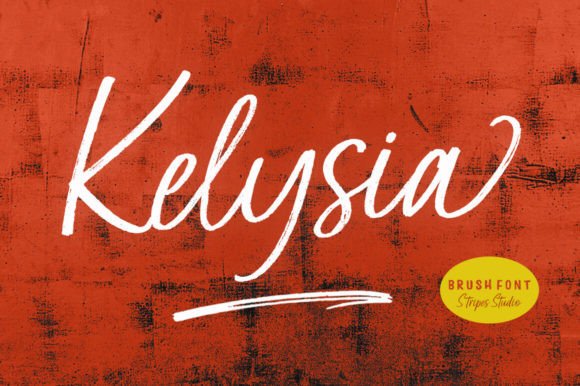
**Unleash the Charm of Timeless Elegance with Kelysia Script Font**
Transport yourself to a world of handwritten charm with Kelysia Script, a captivating font family that captures the essence of heartfelt communication. This exquisite script is a testament to the beauty of imperfection, handcrafted with detailed brush strokes that impart a raw yet irresistibly alluring texture. Its quirky personality dances across your designs, leaving a trail of visual delight.
**Immerse Yourself in a World of Versatility**
Kelysia Script's versatility is as limitless as your creativity. Whether you're designing a title that demands attention, crafting a signature that exudes authenticity, or creating letterheads that radiate sophistication, Kelysia Script seamlessly adapts to your vision. Unleash your imagination and explore the endless possibilities that await you with this captivating font.
**Elevate Your Designs with Kinematic Grace**
With Kelysia Script, you'll discover a font that moves with grace, capturing the dynamic essence of handwritten words. Its fluid strokes and playful curves dance across your designs, adding a touch of elegance and intrigue. Prepare to be mesmerized as Kelysia Script transforms your designs into captivating works of art.
**Indulge in the Art of Personal Expression**
Kelysia Script is more than just a font; it's an extension of your personal style. Whether you're crafting wedding invitations that reflect the unique bond you share, creating badges that embody your brand's identity, or designing posters that ignite hearts, Kelysia Script becomes a part of your creative journey, adding a layer of heartfelt emotion to every project.
**Embrace the Timeless Beauty of Kelysia Script**
Kelysia Script isn't just a font; it's a testament to the enduring power of handwritten letters. Its timeless charm transcends trends, ensuring that your designs stand the test of time. Embrace the beauty of authenticity and make Kelysia Script an integral part of your creative toolkit. Experience the joy of crafting designs that exude timeless elegance and heartfelt charm.